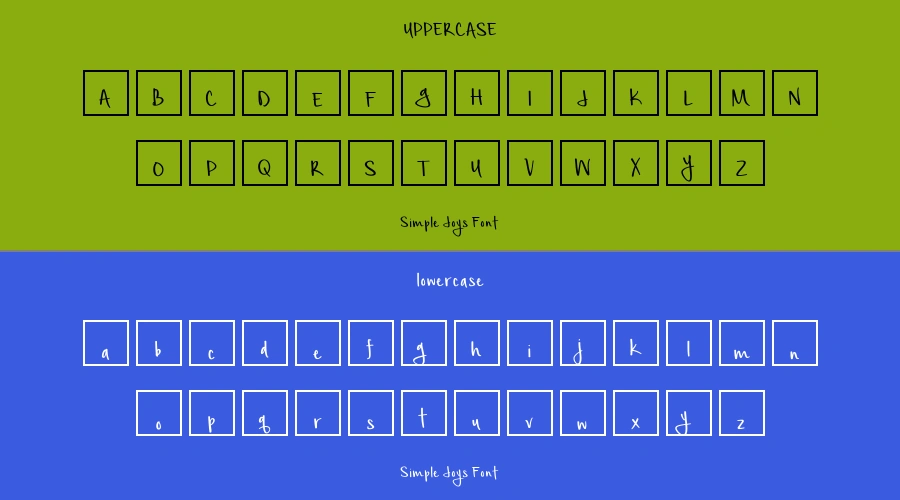
About Simple Joys Font
Simple Joys Font embodies typographic excellence through its masterful combination of rounded corners and professional finish. Created for scientific papers, this typeface delivers exceptional authenticity and classic beauty across all applications. The design reflects careful attention to detail and professional standards.
Advanced capabilities include distinctive teardrop terminals and versatile numerator/denominator, giving designers creative control. When used in artistic statements, Simple Joys Font exhibits remarkable headline impact. The harmonious balance between counter size and design philosophy sets this typeface apart.